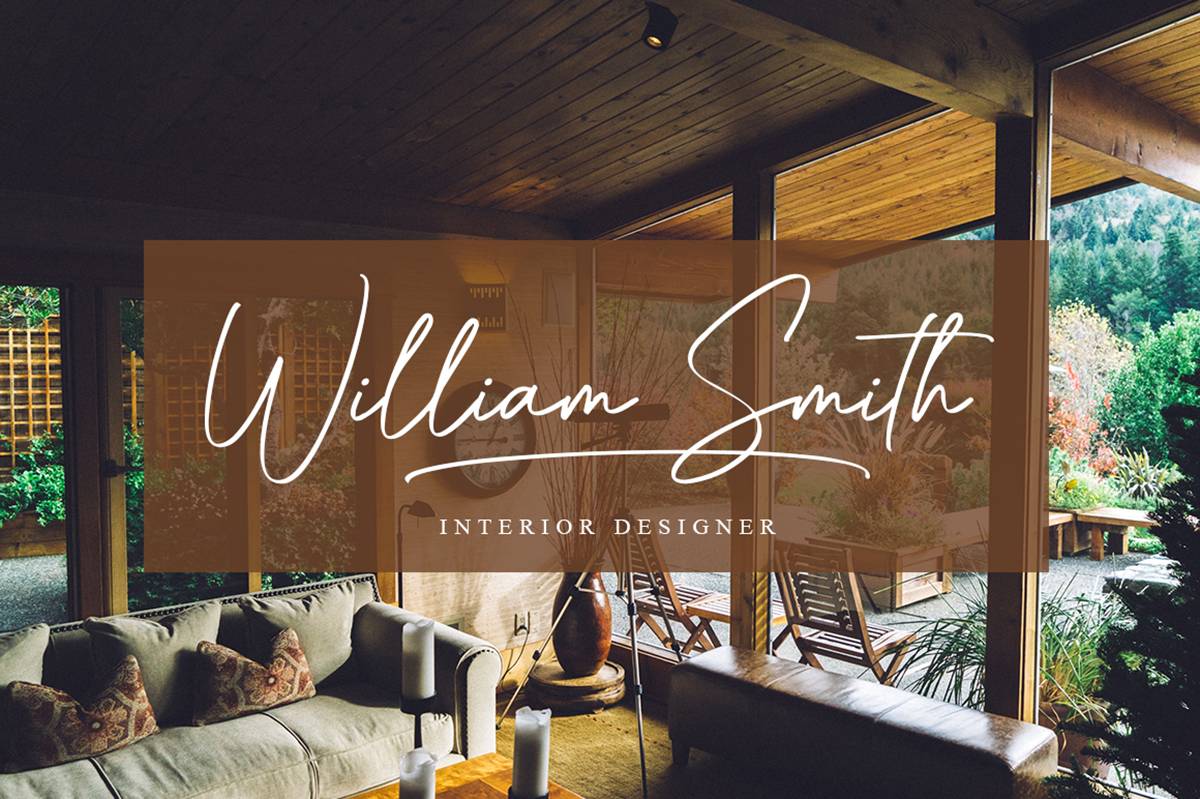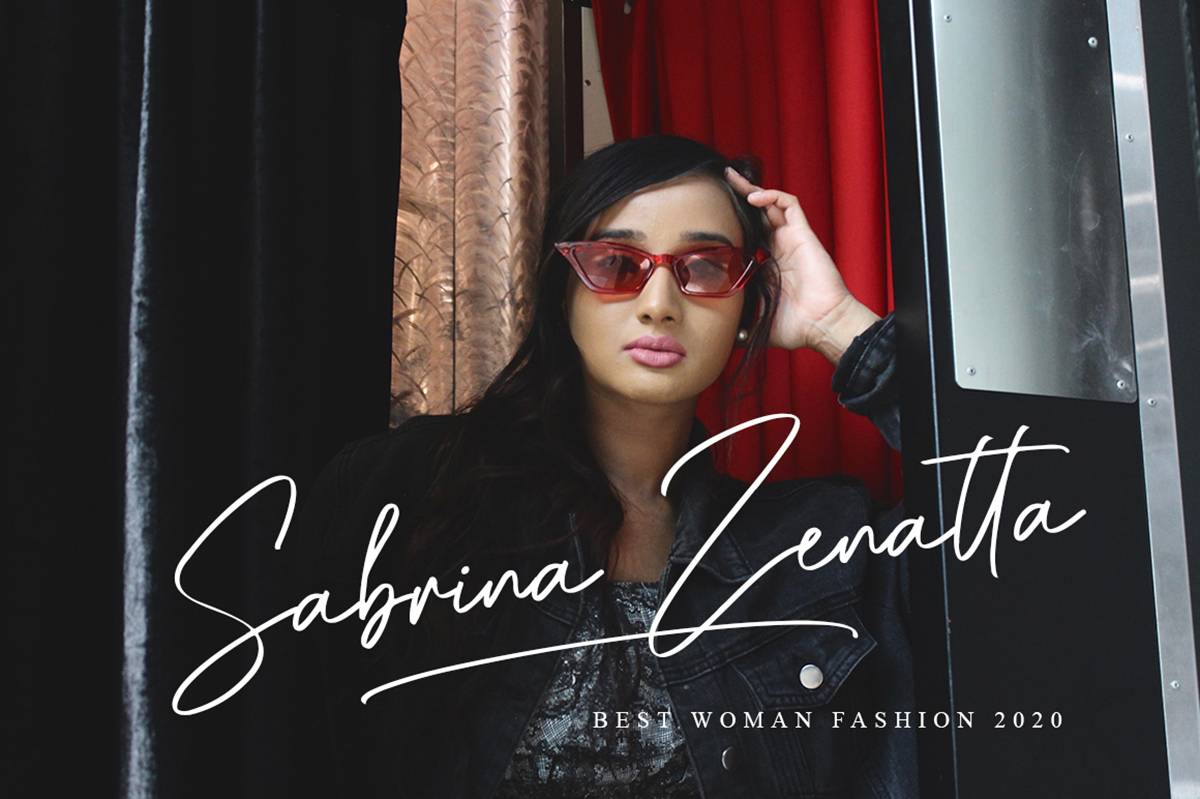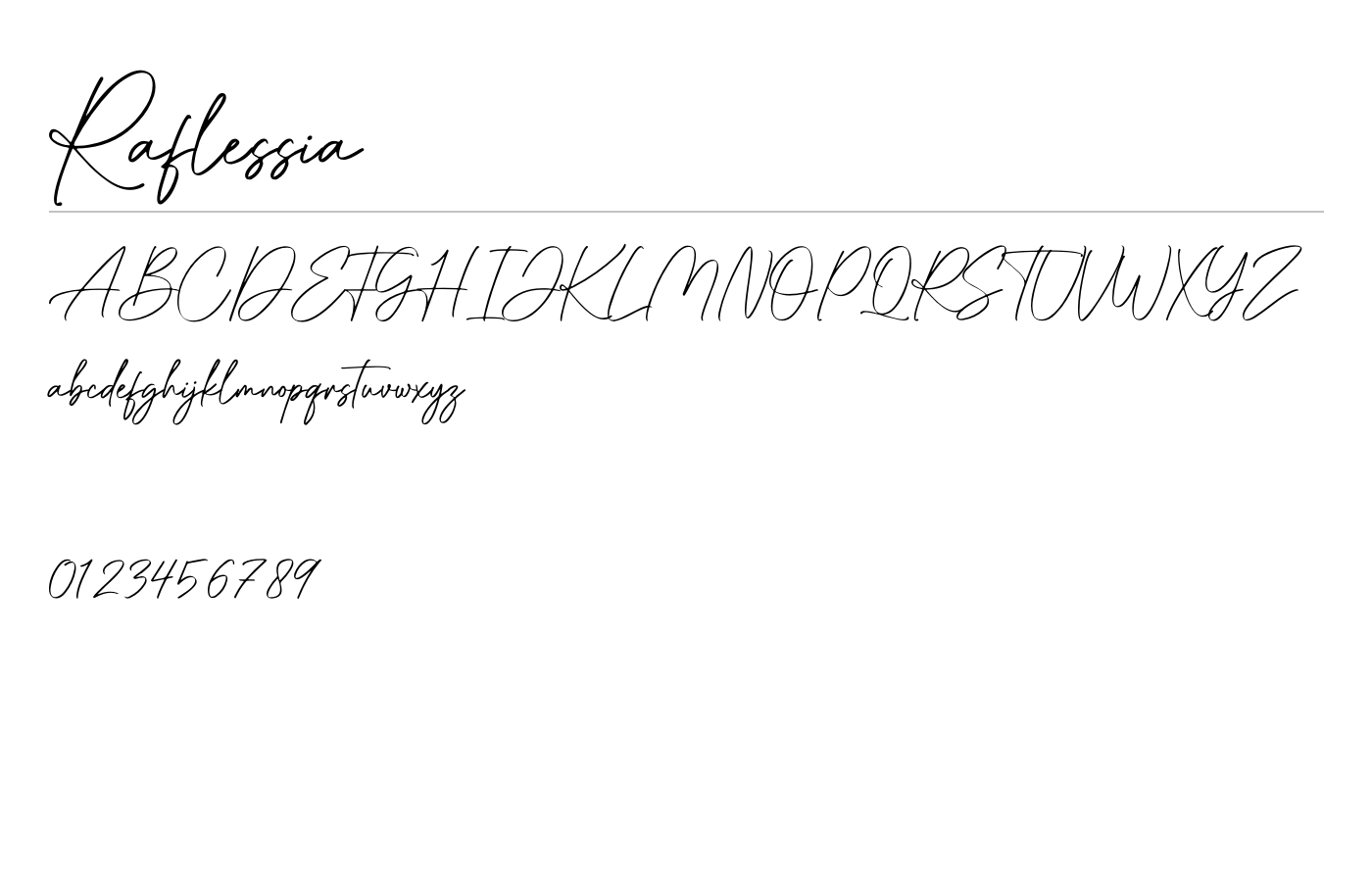
Raflessia is a delicate, handwritten script font with a graceful and flowing style that evokes elegance and personal charm. Its thin, smooth strokes and slightly varied letterforms give it a natural, sophisticated feel, making it perfect for invitations, branding, and creative projects that seek a touch of refinement and warmth. This font shines best in designs that require an intimate, stylish impression.
Raflessia Font
About Raflessia Font